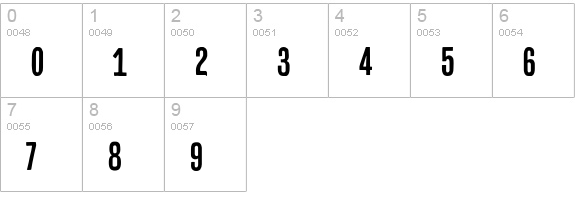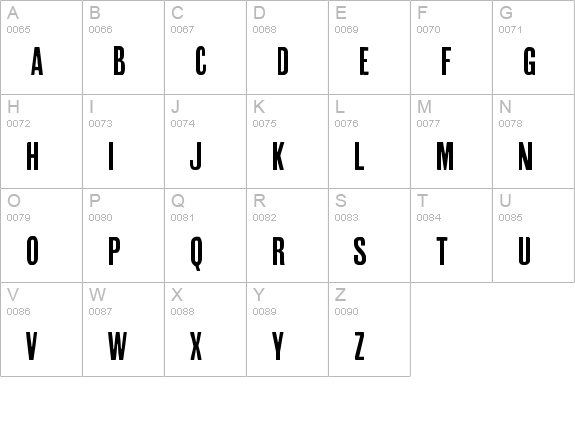
Introducing Cheap Pine Sans font - a versatile and modern typeface perfect for a wide range of design projects. This font exudes a sense of simplicity and elegance, making it ideal for both professional and creative applications. With its clean lines and crisp edges, Cheap Pine Sans offers a sleek and contemporary look that is sure to enhance any design. The best part? Cheap Pine Sans font is completely free to download at FontsMarket.com! This means you can easily access this high-quality font without any additional cost. Whether you're working on branding, advertising, web design, or any other project, Cheap Pine Sans is a fantastic choice that will help you achieve a polished and sophisticated aesthetic. Don't miss out on the opportunity to elevate your designs with Cheap Pine Sans font. Download it for free today at FontsMarket.com and start creating stunning visuals that leave a lasting impression.